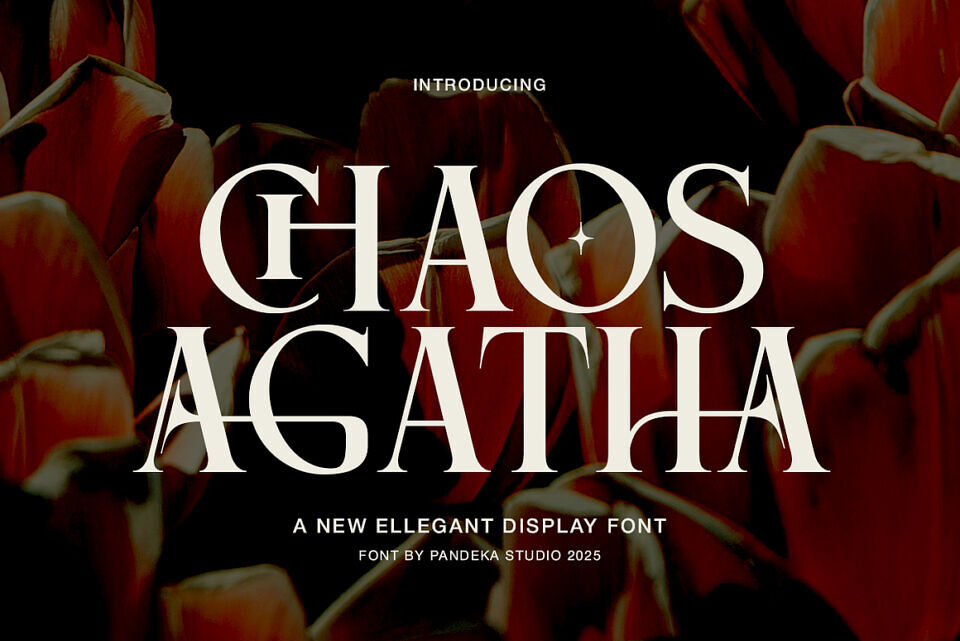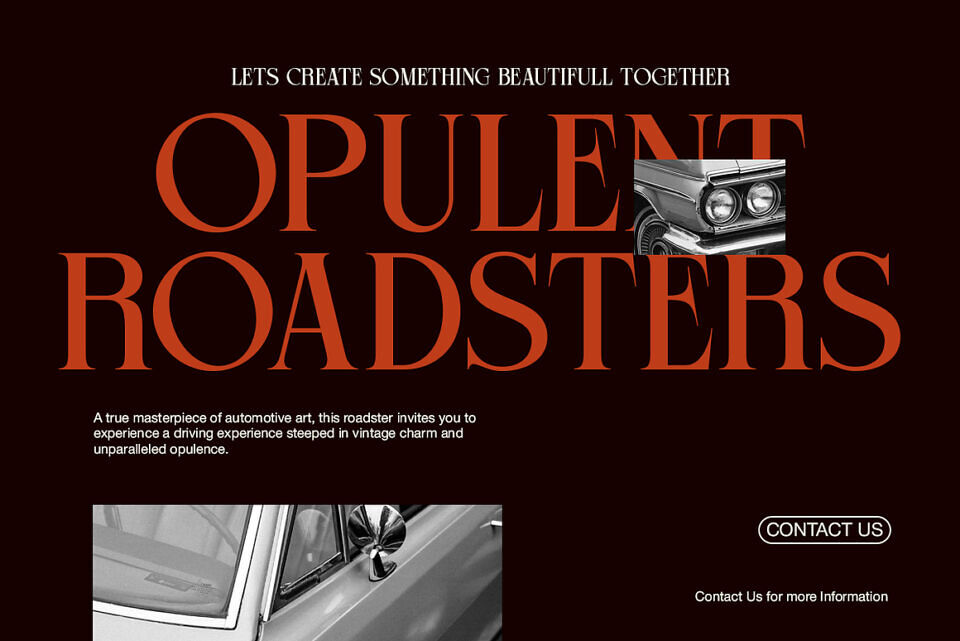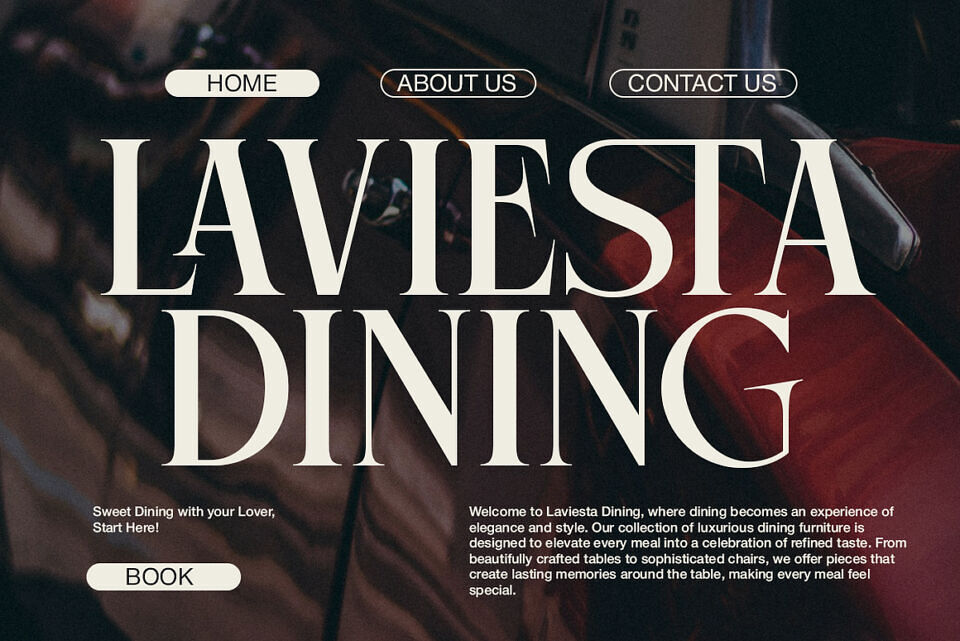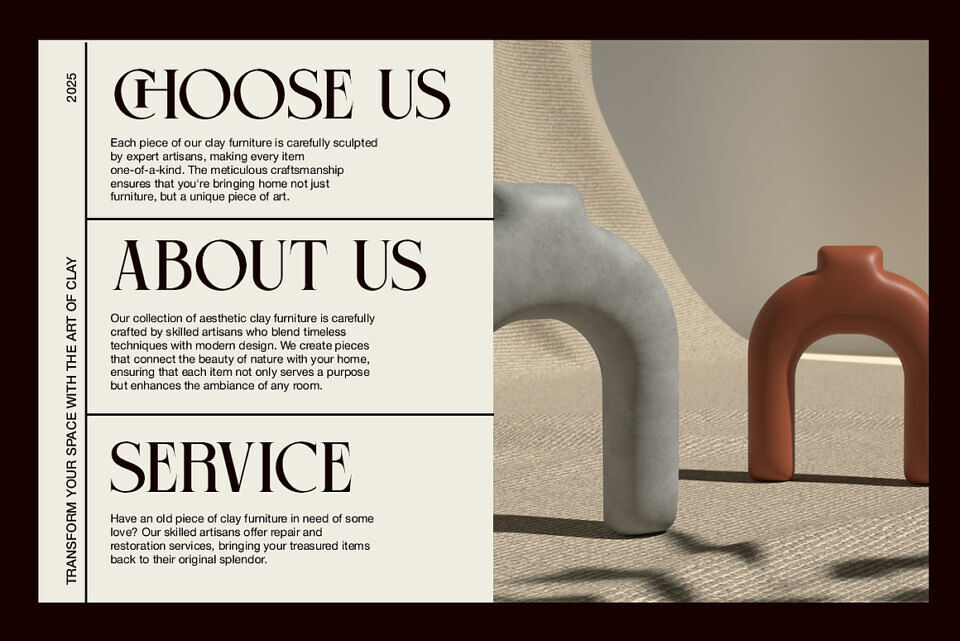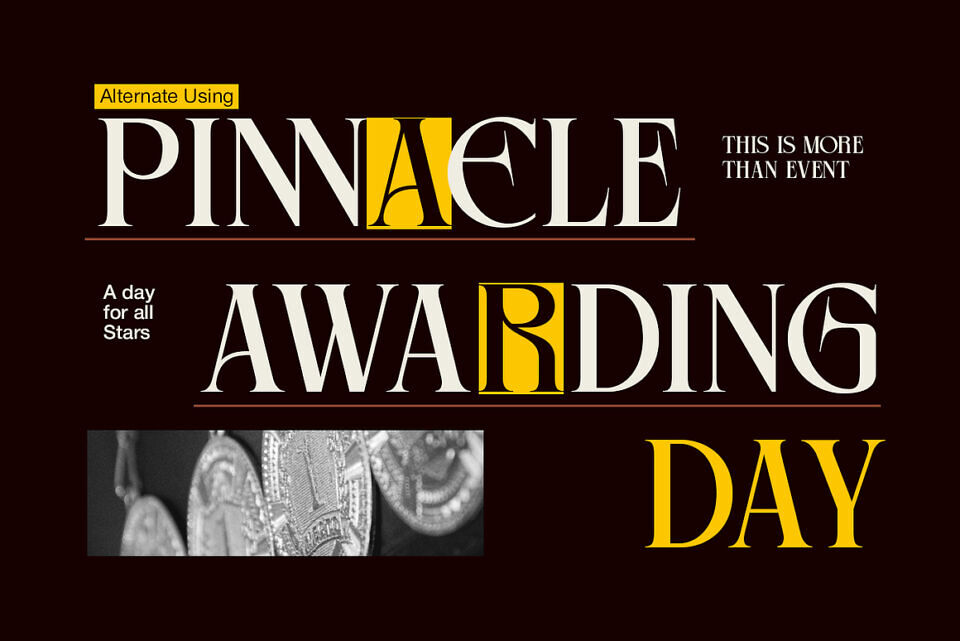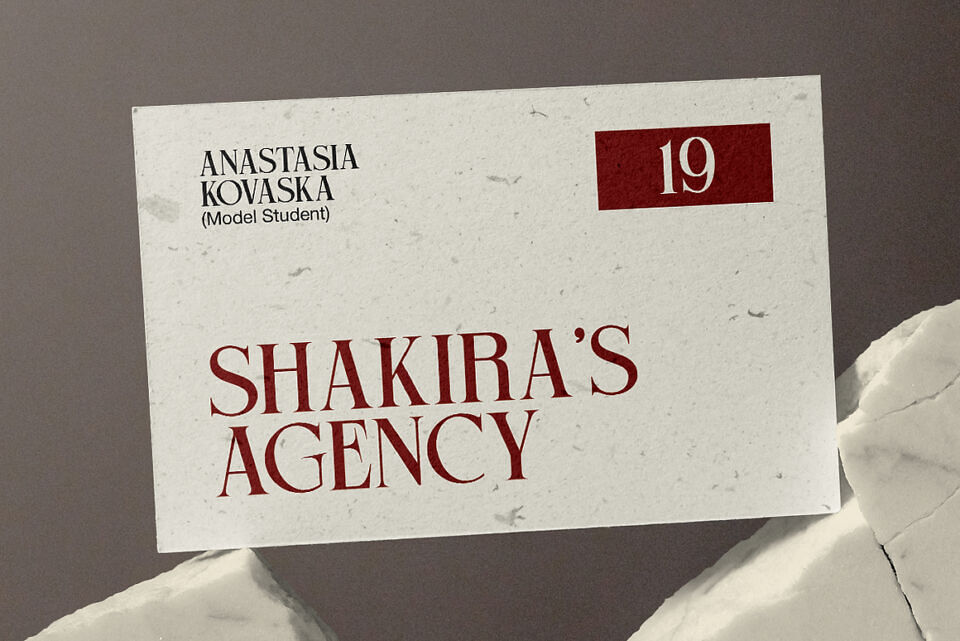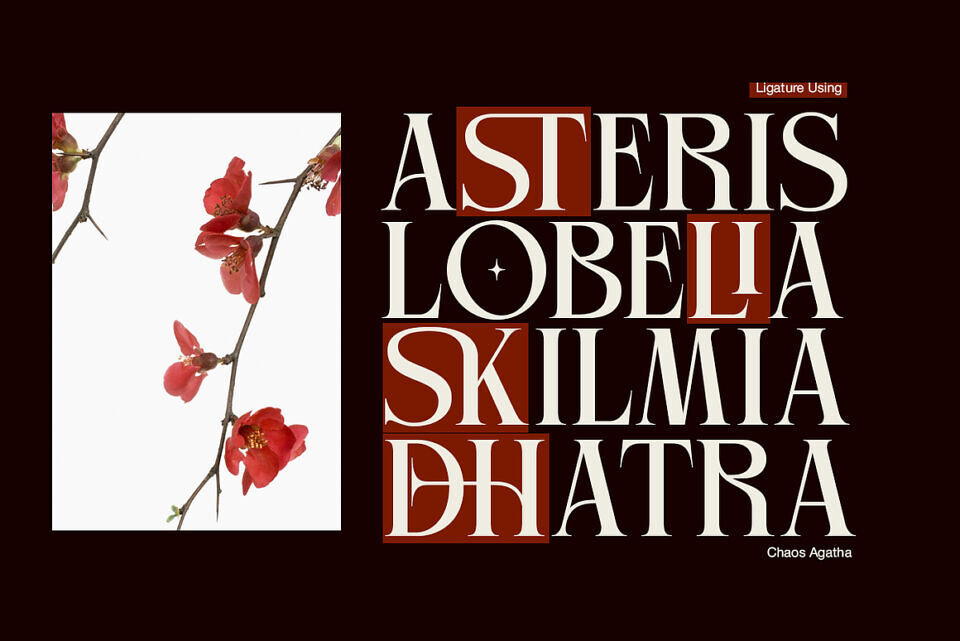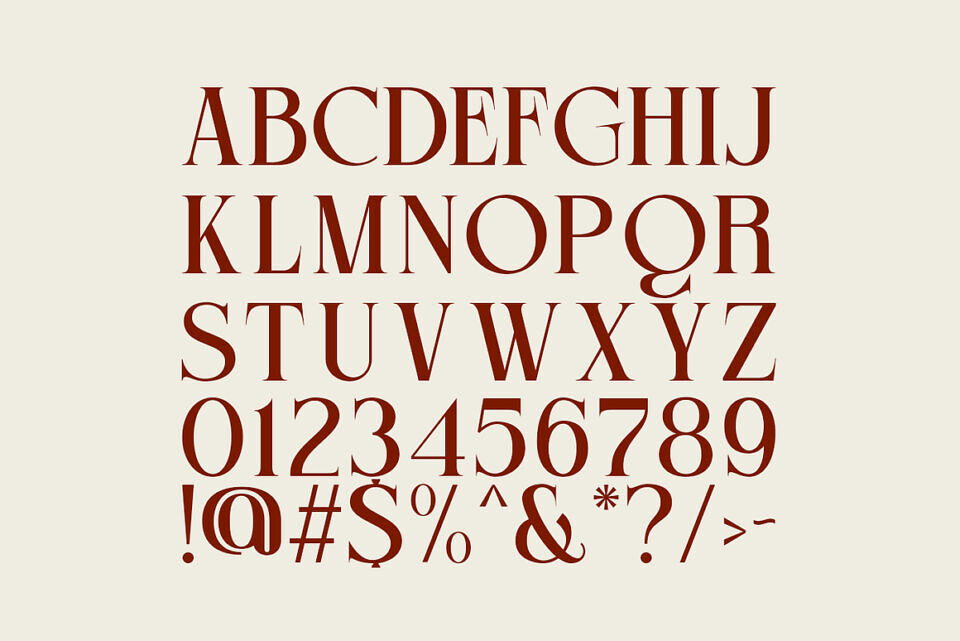
Chaos Agatha is a sophisticated display serif with a bold character and timeless elegance. Designed for luxury branding, stylish lettering, high-end packaging, and editorial designs, this font exudes refinement and exclusivity. Its classic yet modern aesthetic makes it ideal for premium fashion, beauty, and lifestyle projects, ensuring a distinctive and captivating visual appeal.